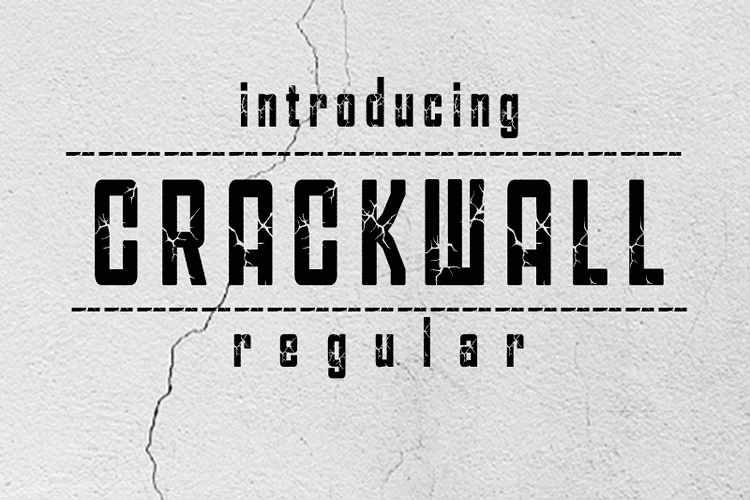
CRACKWALL-Regular Font is font with handmade crack effect. This font is great for your works, suitable for branding, logo, poster, t-shirt, book cover and creative job.